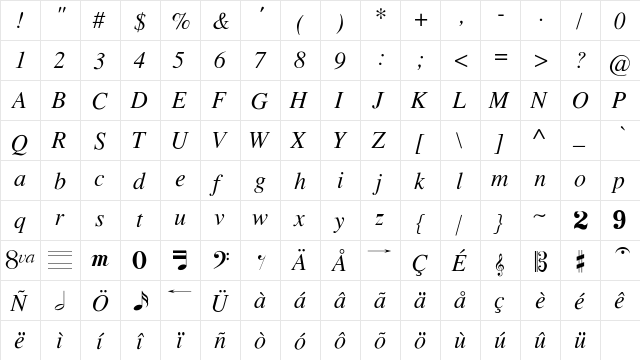
TempoFontItalic Regular
Design Context for TempoFontItalic Typeface
TempoFontItalic offers clean, dependable letterforms without strong stylistic allegiance, making it a practical choice for designers who need flexibility. The dynamic lean of this cut emphasises speed and emphasis in any layout.